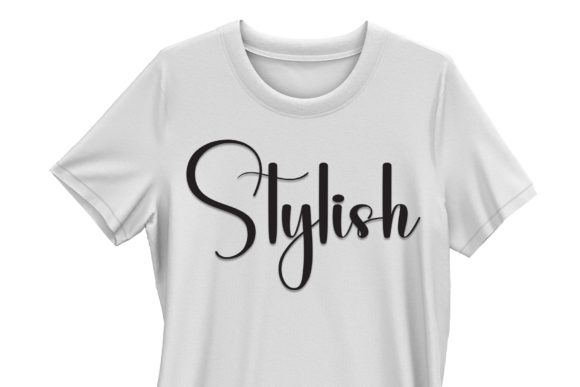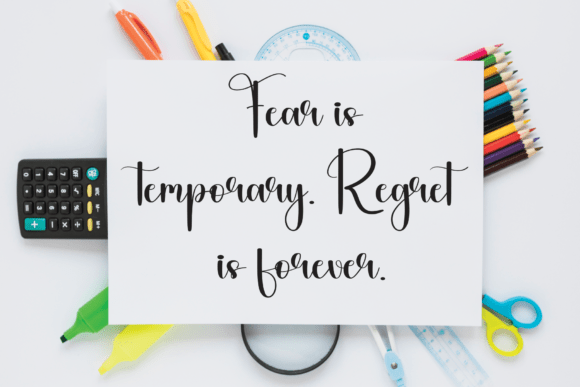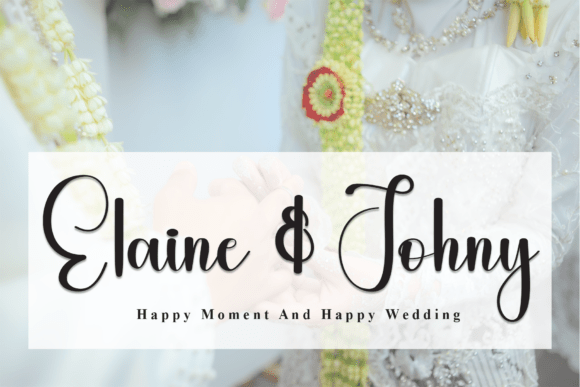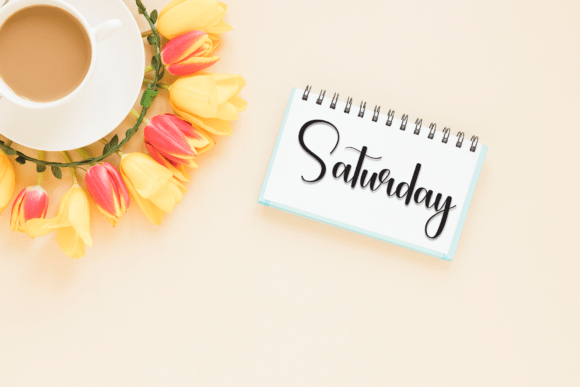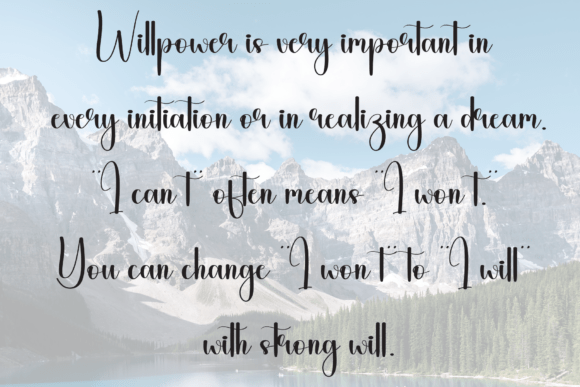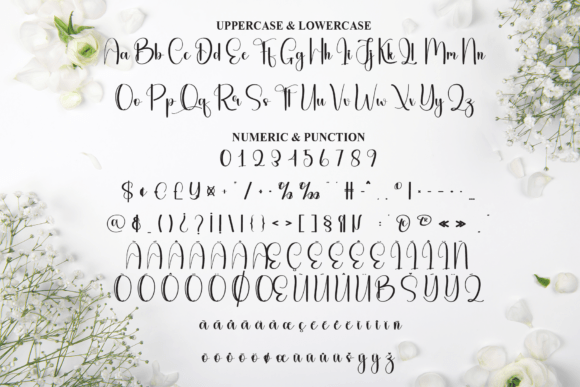
As you sit at your desk, surrounded by half-finished projects and scattered ideas, you can’t help but feel the pressure to create something truly special. Your client’s wedding invitation, your friend’s birthday card – the list goes on, and the stakes are high. But what if you could infuse your designs with a dash of playfulness, a pinch of charm, and a whole lot of heart? Enter Charefull Font, a handcrafted display font that’s been carefully crafted to bring warmth and whimsy to your creations.
With its delightful essence, Charefull Font lends itself perfectly to a wide range of design projects. Whether you’re crafting a wedding invitation, a heartfelt greeting card, or simply looking to add a touch of personality to your branding, this font is sure to bring a smile to your face and a spring to your step. As a designer, you know the value of a well-chosen font – and Charefull Font is a true treasure that’s sure to elevate your designs and leave a lasting impression.
Charefull Font Key Features
- Font Family: Charefull Font comes in multiple font styles, including Regular, Italic, Bold, and Bold Italic.
- Character Set: Supports a wide range of characters, including Latin, Cyrillic, and Greek alphabets, as well as various punctuation and special characters.
- Unique Characteristics: Charefull Font features a unique, hand-drawn design with subtle imperfections, giving it a warm and inviting feel.
Designer Review: Charefull Font
Overall, I found Charefull Font to be a unique and intriguing addition to any design project. ✨ It’s perfect for those looking to add a touch of elegance and sophistication. Here’s a breakdown of my thoughts on this font.
- ✨ Elegant and refined aesthetic: Charefull Font is perfect for creating a high-end look and feel.
- ✨ Versatile: This font works well in both digital and print mediums.
- ✨ Wide range of weights and styles: Charefull Font offers a range of weights and styles to suit different design needs.
- ⚠️ Limited language support: Charefull Font may not be suitable for designs requiring support for multiple languages.
- ⚠️ Not ideal for bold or attention-grabbing headlines: While Charefull Font is elegant, it may not be the best choice for headlines that require a lot of emphasis.
Overall, Charefull Font is a solid choice for designers looking to add a touch of sophistication to their projects. While it may have some limitations, it’s a great addition to any design library.
Charefull Font is commonly used in design projects that require a elegant and sophisticated look. It is ideal for use in wedding invitations, business cards, and other design projects that require a touch of luxury and sophistication.